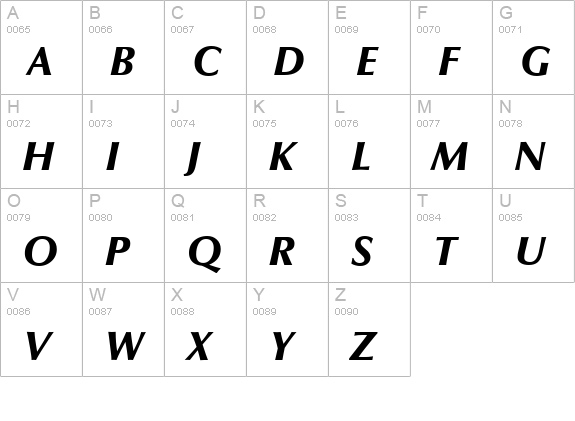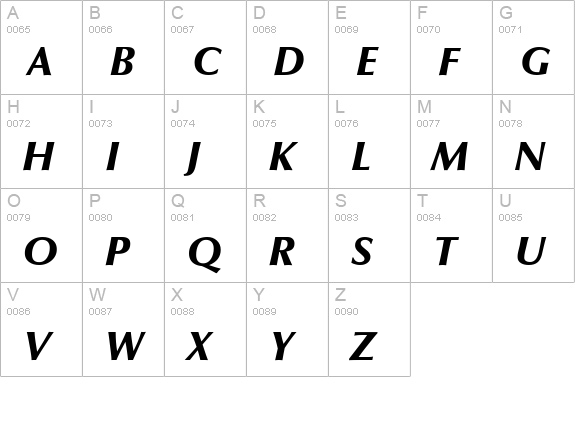
O801-Flare-Xbold-Italic Font Details
O801-Flare-Xbold-Italic is a distinctive, italic variant in the O801 typeface family \xE2\x80\x94 well suited to design and typography projects.
O801-Flare-Xbold-Italic font is a bold and dynamic typeface that exudes confidence and modernity. With its striking italicized design, this font is perfect for making a bold statement in any project. The sharp angles and exaggerated strokes give O801-Flare-Xbold-Italic a unique and eye-catching appearance that is sure to grab attention. What makes O801-Flare-Xbold-Italic even more appealing is that it is available for free download at FontsMarket.com. This means that you can easily access this stylish font without any cost, making it a fantastic option for designers on a budget. Whether you're looking to add a touch of flair to your branding, advertising, or creative projects, O801-Flare-Xbold-Italic is a versatile choice that will elevate your designs to the next level. Download this dynamic font today and make a bold impression with O801-Flare-Xbold-Italic.